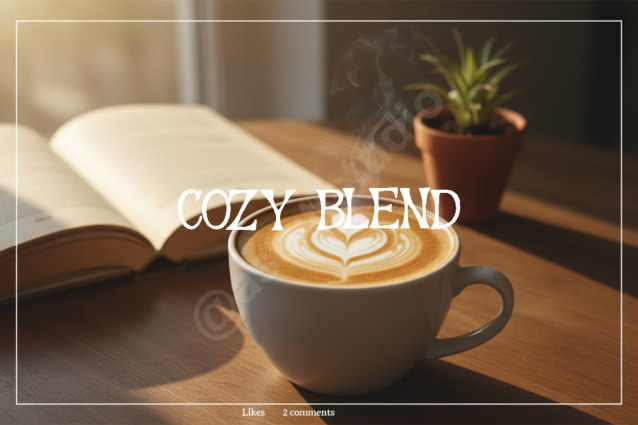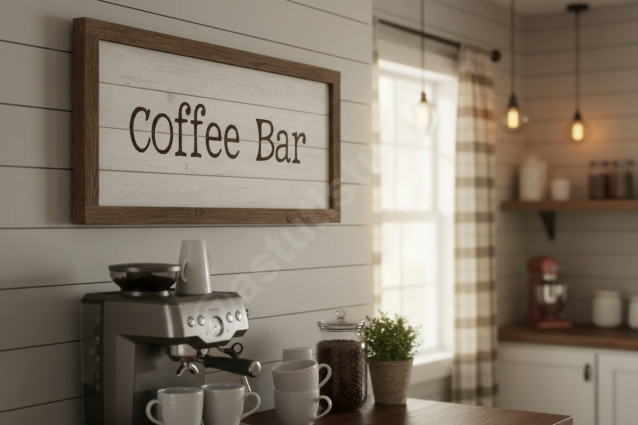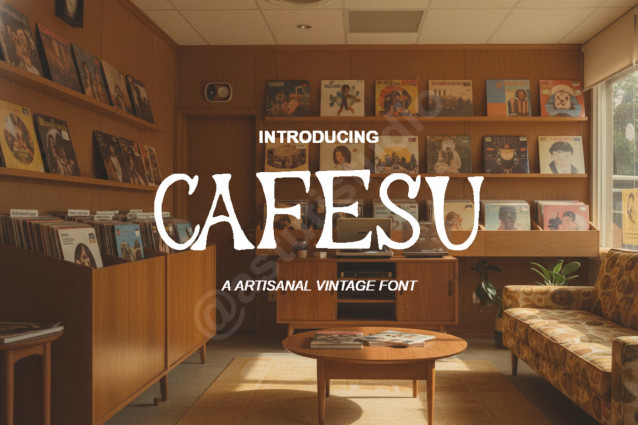
Cafesu Font
Introducing Cafesu, a sophisticated and highly refined display serif typeface designed for the modern luxury market. Cafesu expertly balances classic elegance with contemporary minimalism, offering a distinct voice perfect for elevated visual communication. Crafted with meticulous attention to detail, its delicate curves and balanced structure ensure your brand identity exudes premium quality and timeless appeal. It is the essential typographic choice for designers seeking elegance, clarity, and undeniable presence.
Key Features & Versatility
Cafesu is engineered for impact and performance across various media:
• Perfect for Luxury Branding: Ideal for high-end packaging, sophisticated logotypes, and exclusive invitations.
• Editorial Excellence: Delivers stunning, authoritative titles and headlines in magazines, books, and digital journals.
• Social Media Ready: Maintains its sharp character definition and elegance even in smaller, fast-moving digital formats.
• Extensive Ligatures & Alternates: Access a full range of stylistic sets and discretionary ligatures to customize your typographic layout.
• Multilingual Support: Covers standard Latin characters for broad international usage.